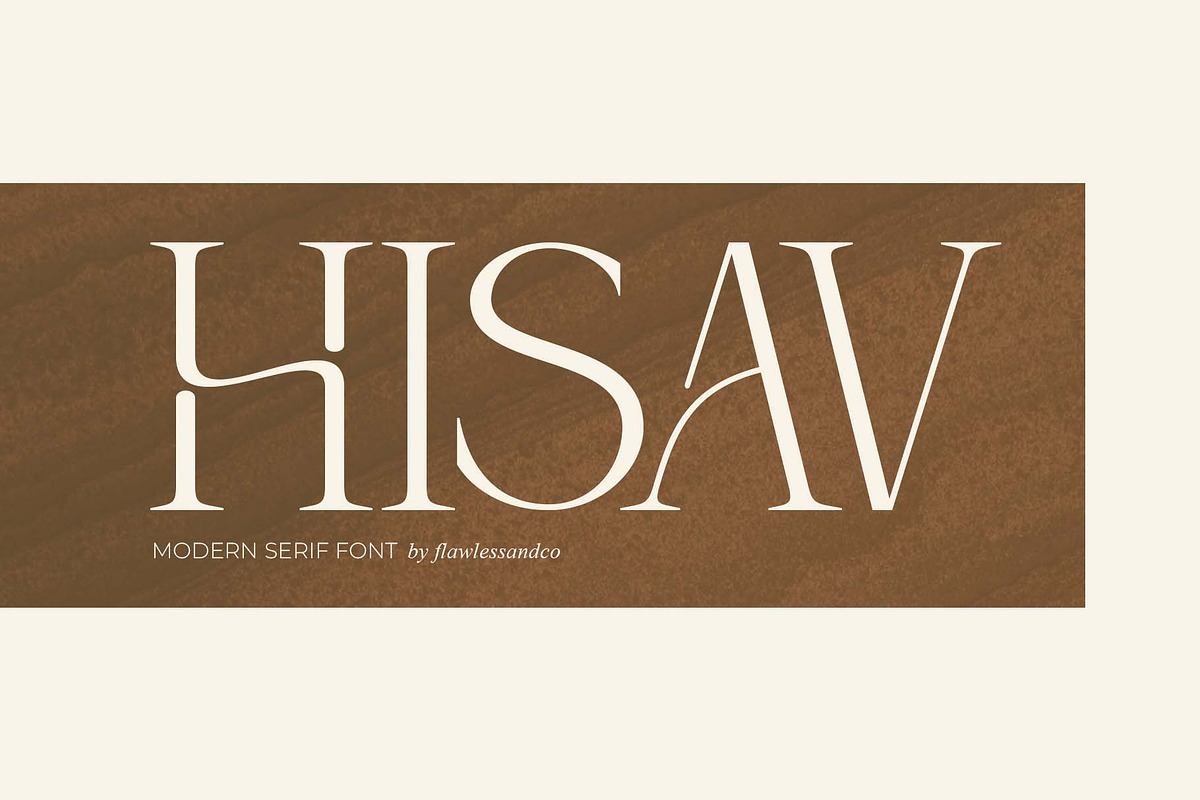
Hisav Font Free Download is a sleek, modern typeface designed with elegance and clarity in mind. With its clean lines and contemporary design, this font is perfect for a variety of uses, including branding, logos, websites, and editorial work. Its minimalist aesthetic makes it ideal for professional and creative projects that require a high level of sophistication.
Hisav Font Free Download brings a modern yet timeless feel to your designs, ensuring excellent readability while maintaining a polished, stylish look. Whether you’re working on corporate identity, a tech product, or a creative portfolio, this font elevates your design with simplicity and strength.